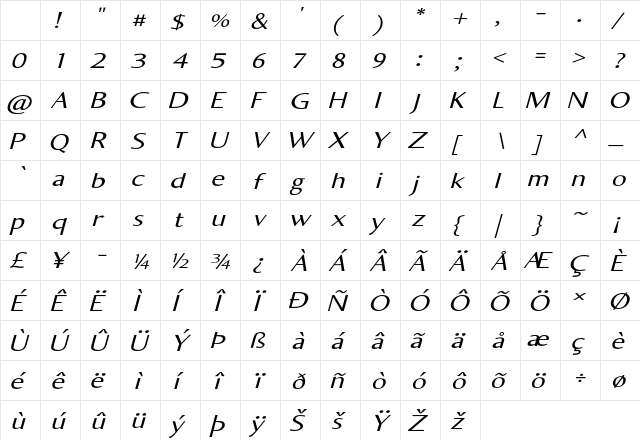
Torten is a composed and adaptable typeface that performs quietly and consistently across a wide range of design contexts. The slanted form adds forward momentum and visual energy.
Pro Tip: Use Torten for emphasis, pull quotes, and subheadings where its slanted energy can add rhythm to the layout.